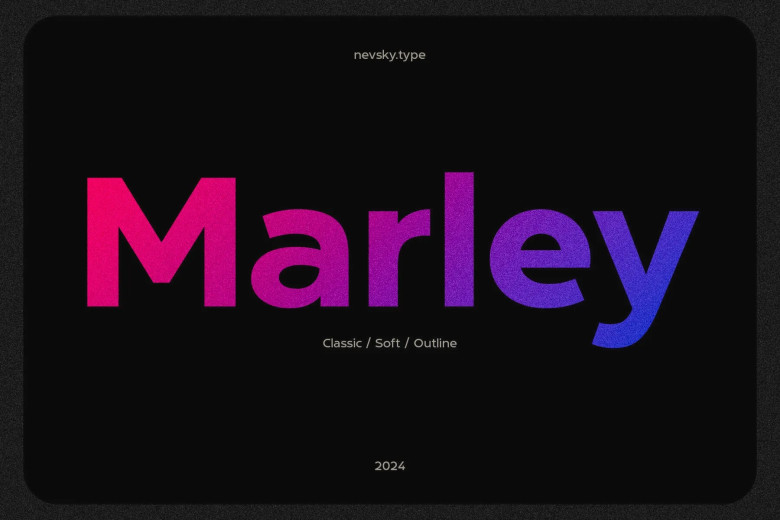
NT Marley Font Family
NT Marley Font
NT Marley is a new display typeface of the sans-serif category. Every designer should have this font in his/her collection and it shall suit your next project. NT Marley deals with over 200 Latin based languages.
This font type is undoubtedly good for logos, corporate identity, and advertisement, travel invitation, layout design magazine, cosmetic products & packages, quotations or even can be used as text on picture concept.
NT Marley Sans Serif Font Family